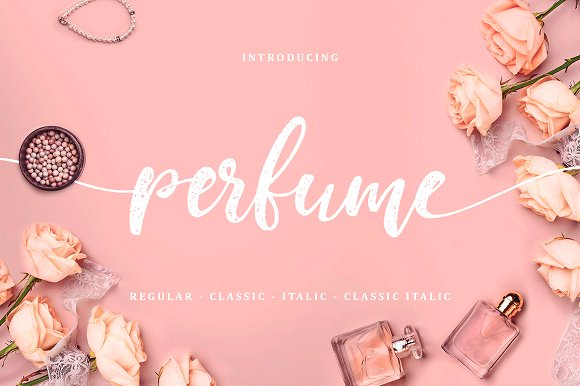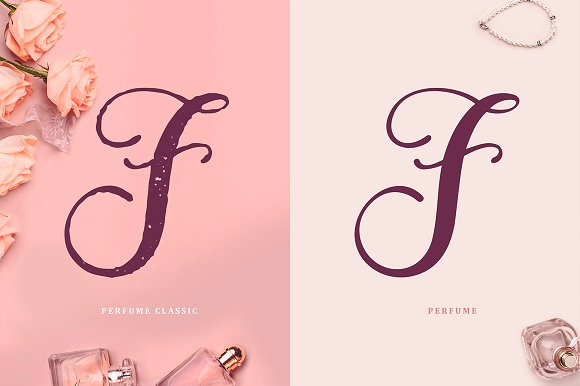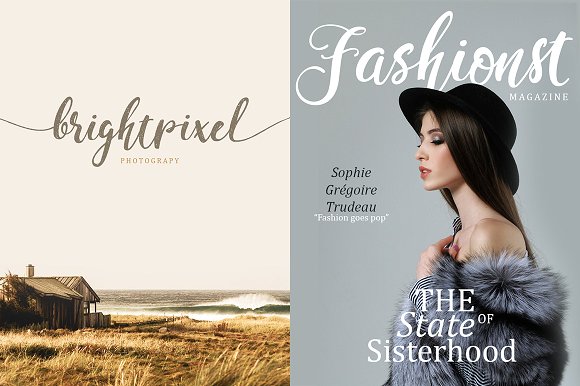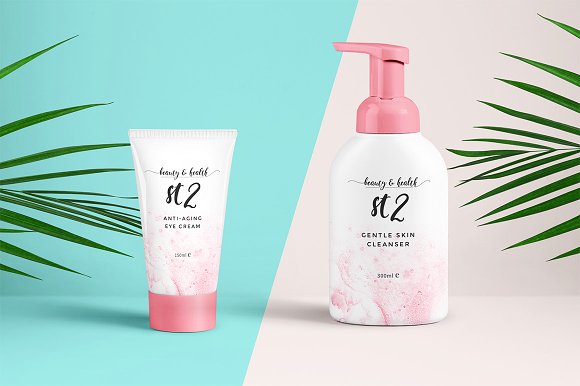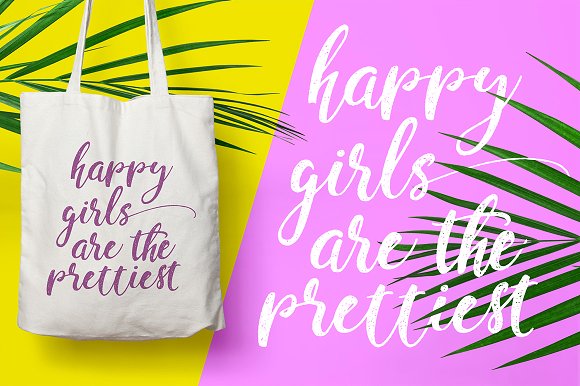
Perfume Font
About Perfume Font
Perfume is a stunning handwriting font that comes in 2 versions: Regular & Classic. Both versions also come with an italic version.
All versions come packed with beautiful long swashes, allowing you to add some elegance to your work.